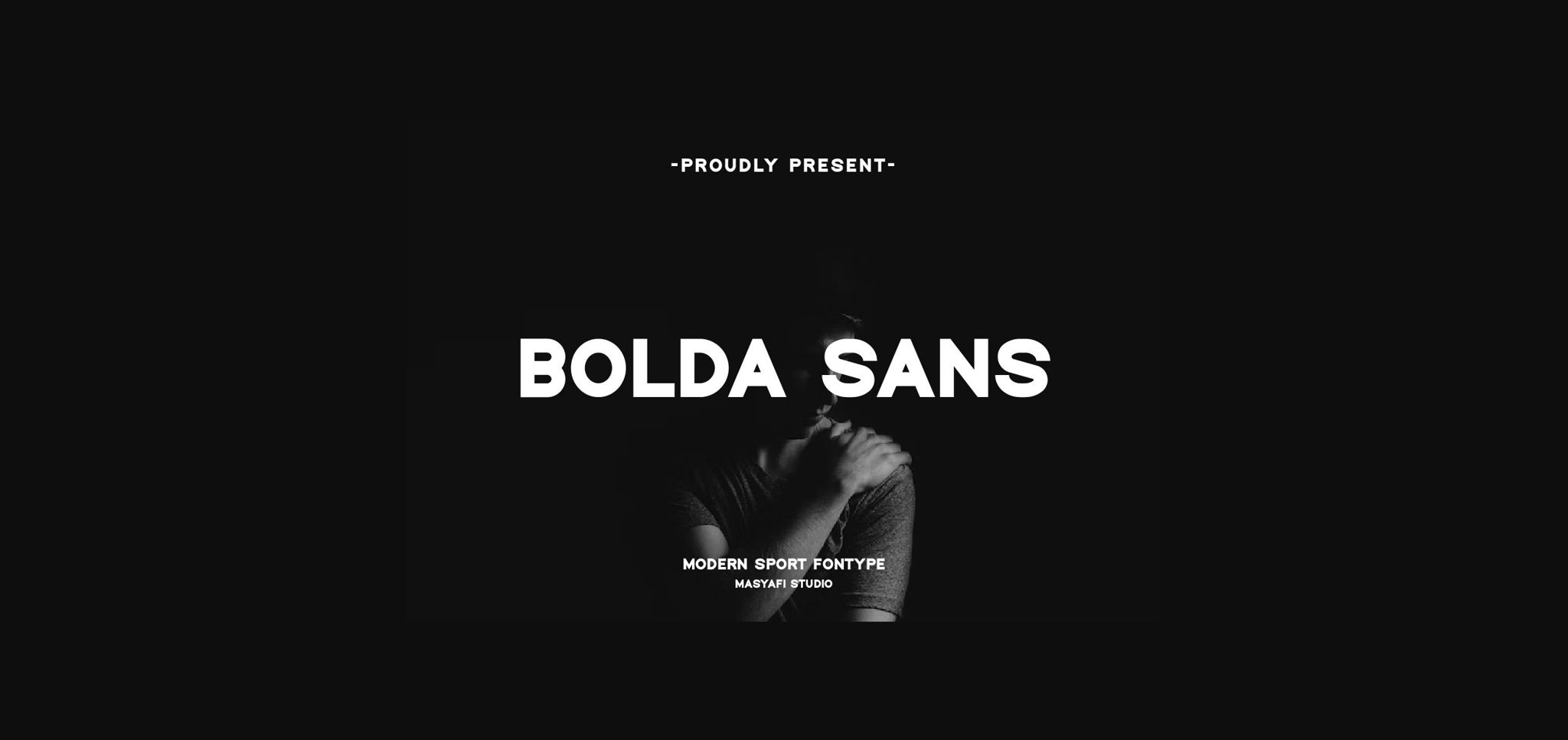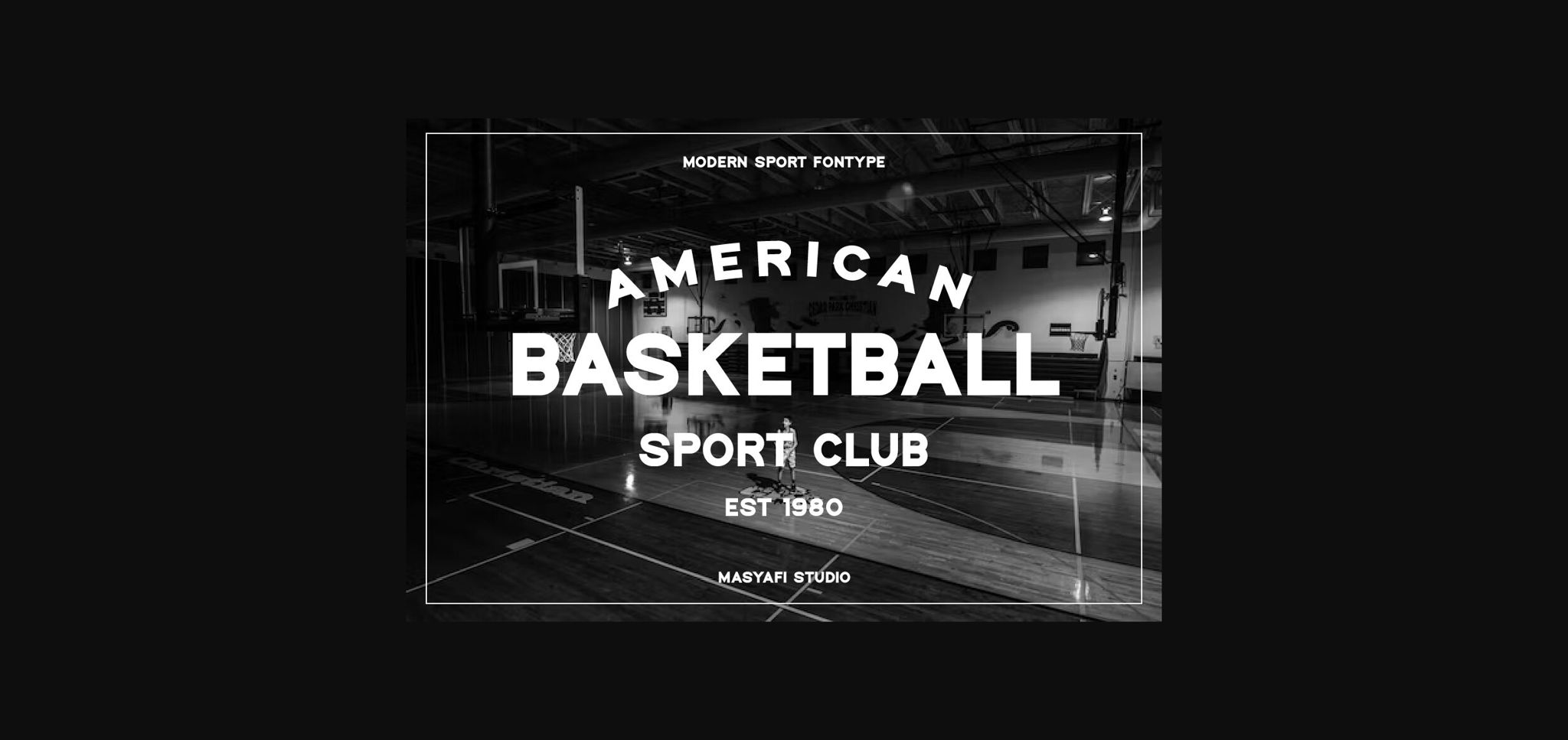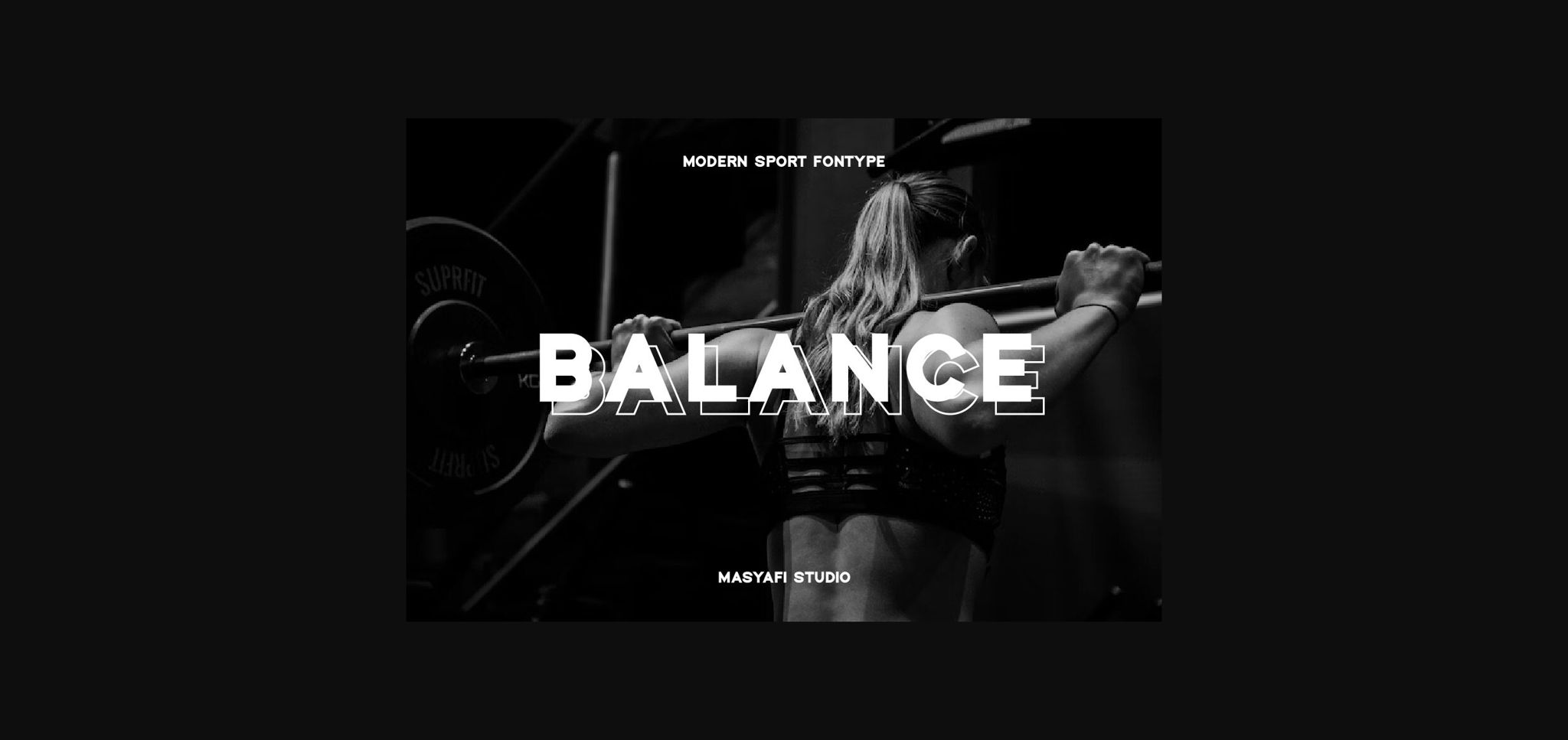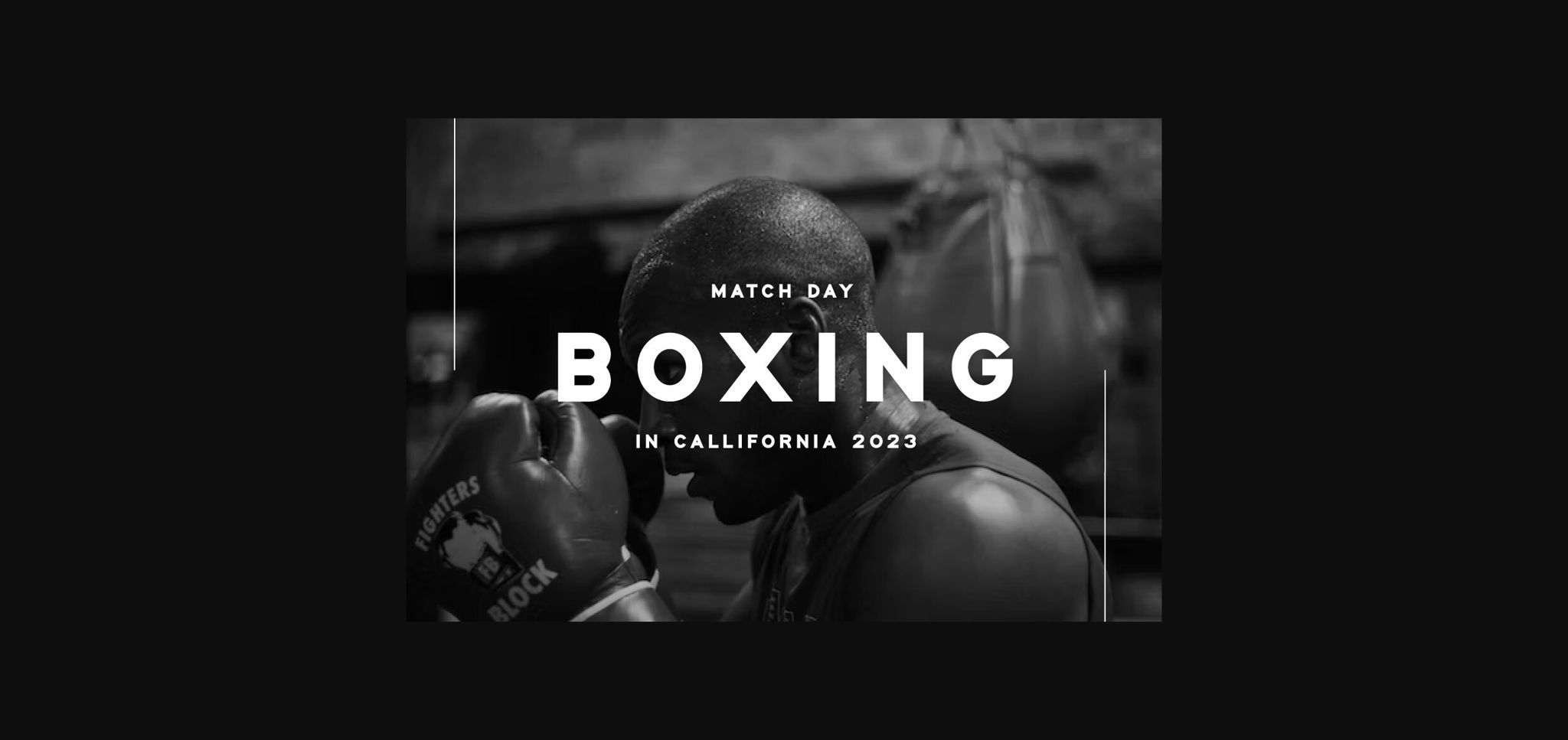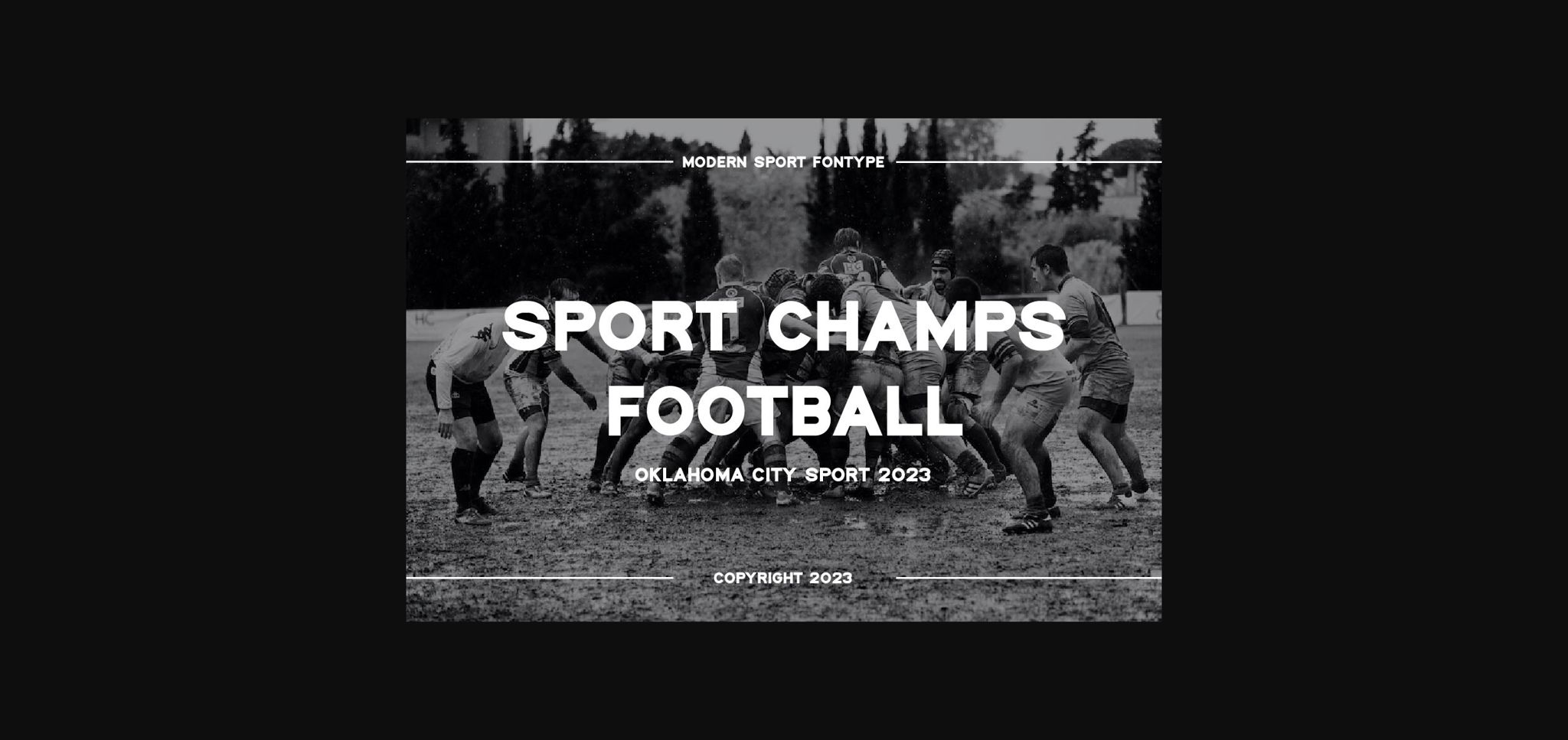
Bolda Sans Font
About Bolda Sans Font
Bolda Sans is a cool, bold and neat sans serif font. Incredibly versatile, this font will help you create strong and impactful designs without sacrificing a sense of style.